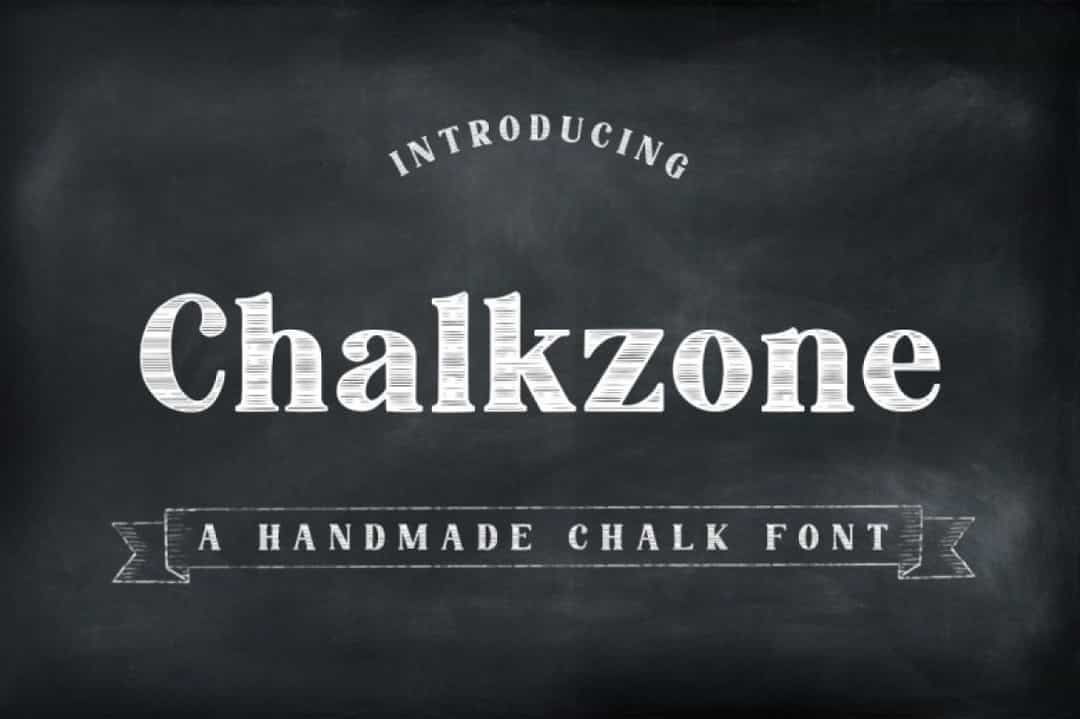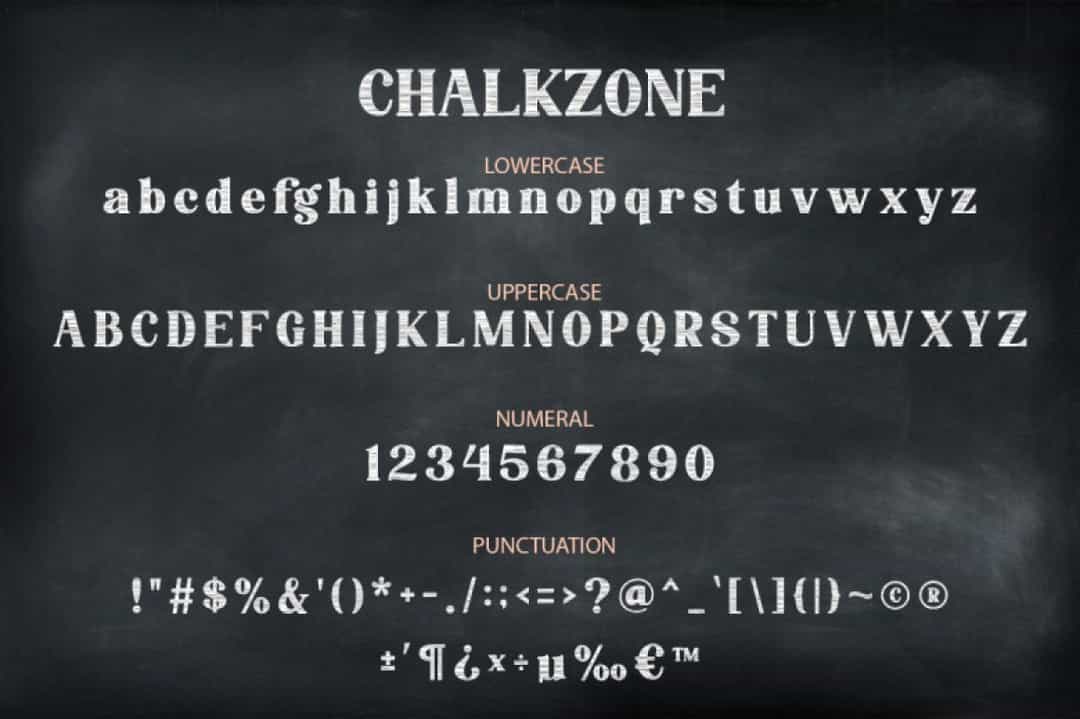
Chalkzone chalk font is an innovative, flexible, and stylish solution for creating authentic chalkboard quotes and teaching materials! With its distinctive appearance and vintage feel, you’ll bring depth and character to your creations.